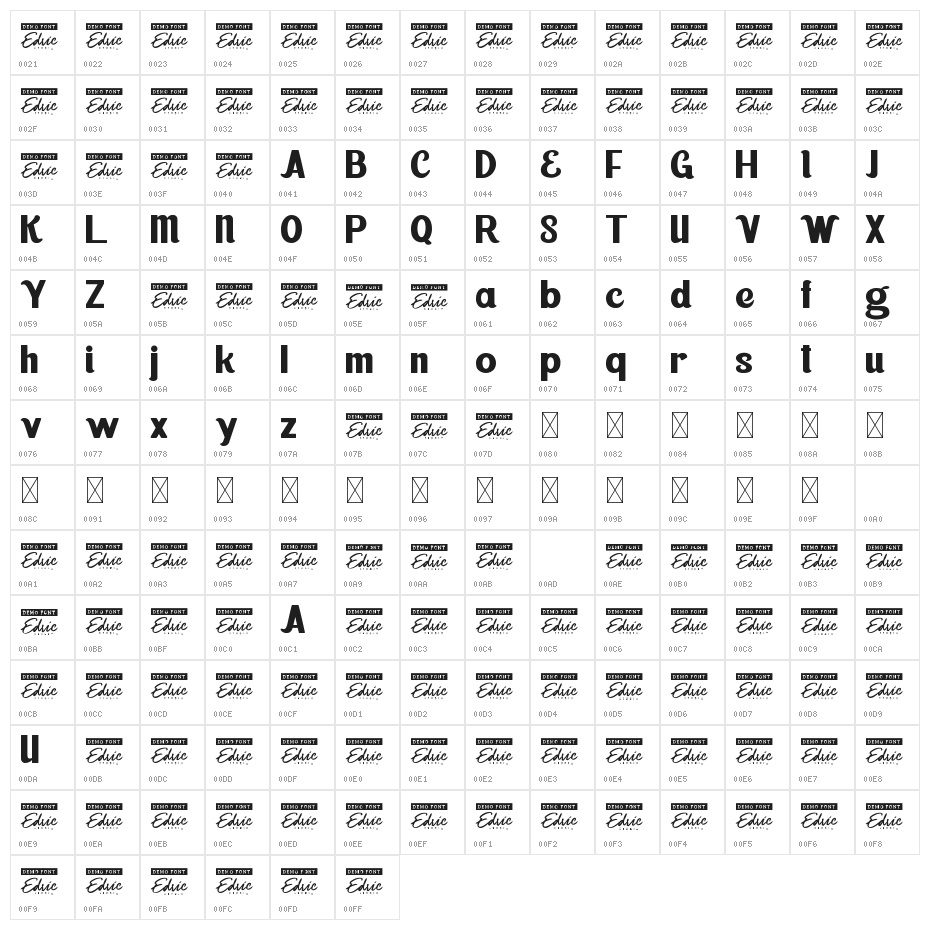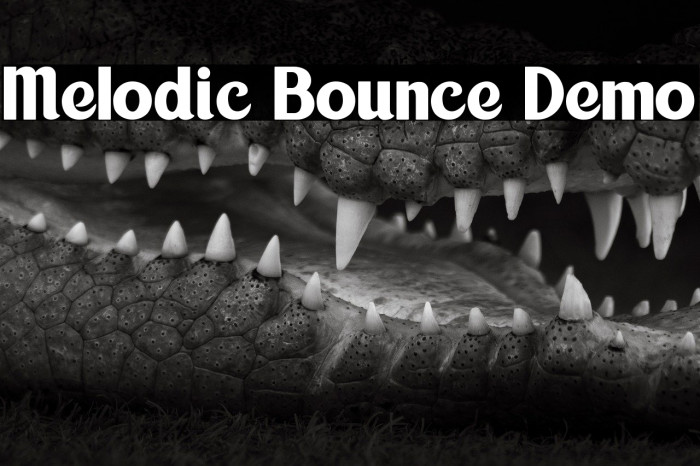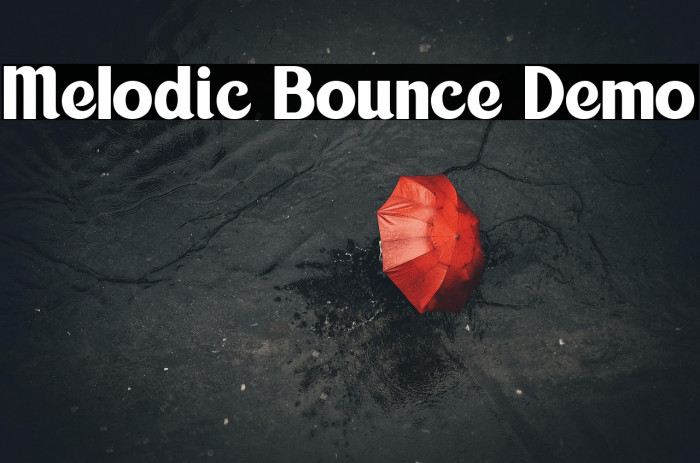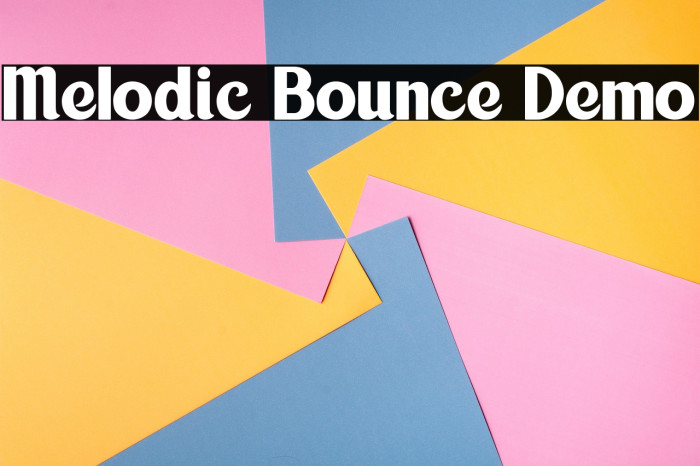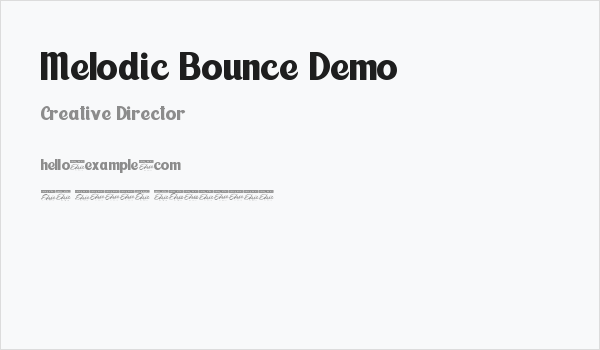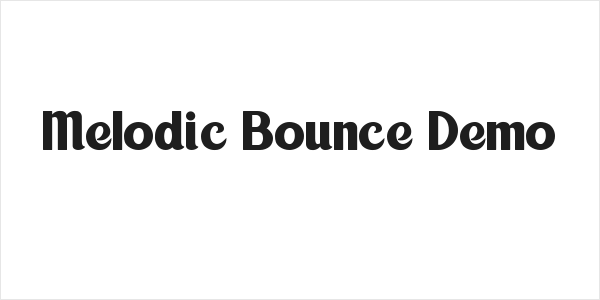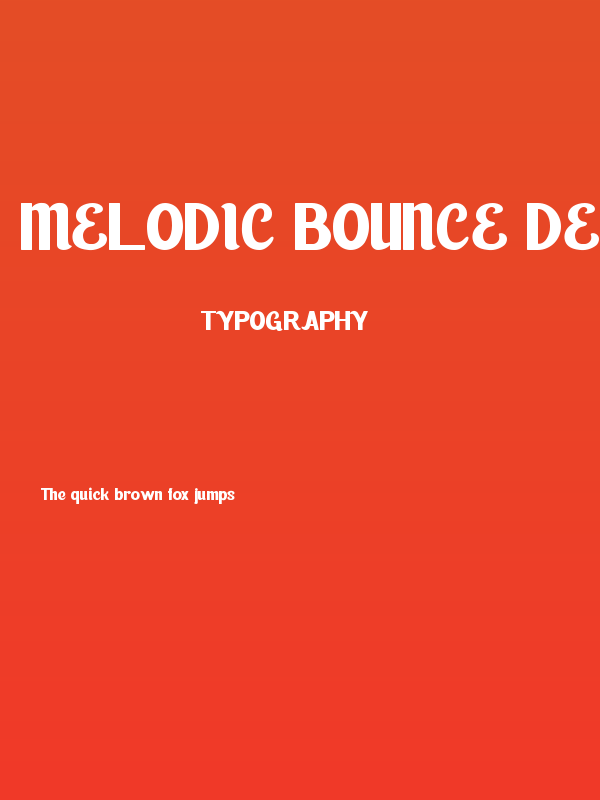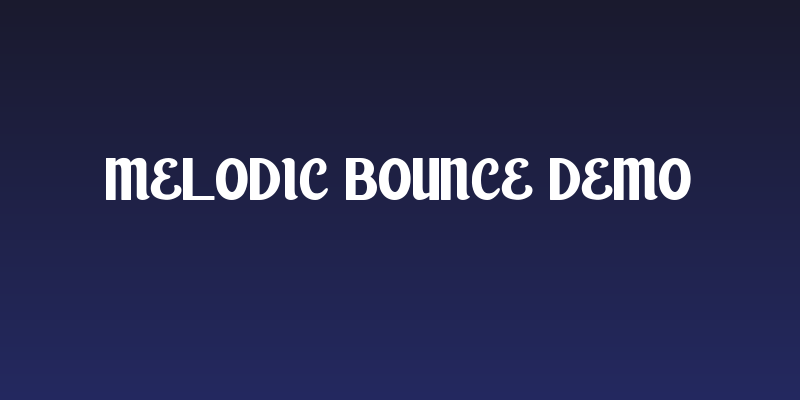
Melodic Bounce Demo Font
Melodic Bounce Demo Description
This font features a bold and playful style, characterized by its thick, rounded strokes and a slight bounce in the baseline, giving it a lively and energetic appearance. The uppercase letters are robust and commanding, while the lowercase letters maintain a consistent weight, enhancing readability. The font's unique charm lies in its subtle curves and rounded edges, which add a friendly and approachable feel. The overall design is cohesive, with a consistent stroke width that provides a harmonious look across all characters. This font is well-suited for projects that require a touch of whimsy and creativity, making it ideal for children's books, playful branding, or any design that aims to convey a sense of fun and joy.
| Overall Style | Playful, Energetic |
| Proposed Projects | Ideal for children's books, playful branding, posters, and creative designs. |